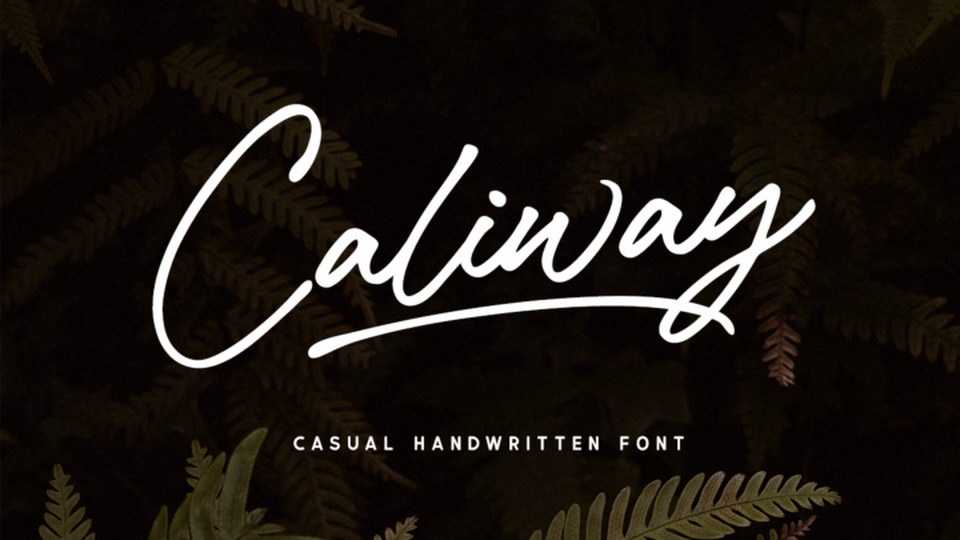
Download Caliway font, a handwritten script that brings the impression of being simple, elegant and warm. Caliway is a casual font that easily complements various types of needs such as social media, T-shirt, signature logos, branding, merch, ads, book titles, packaging, etc.